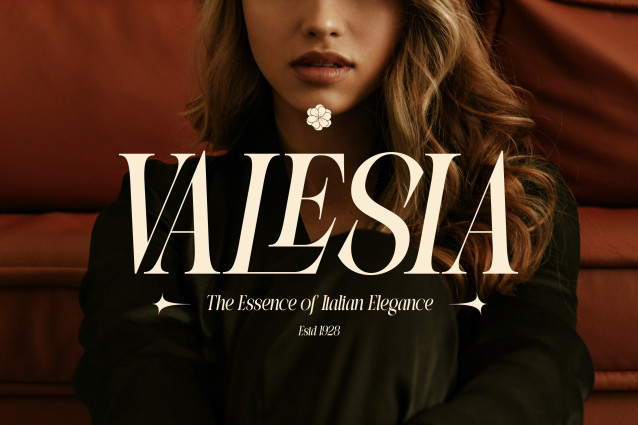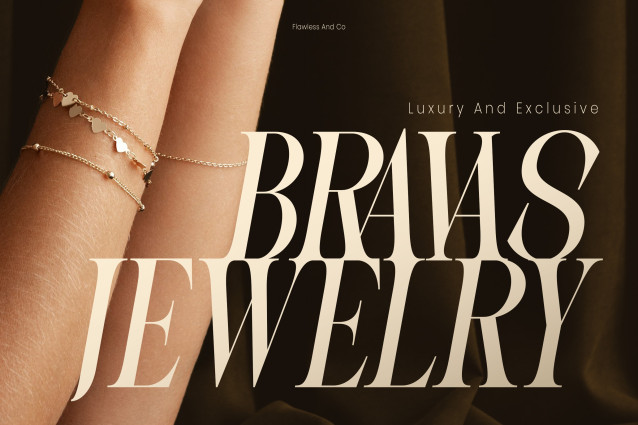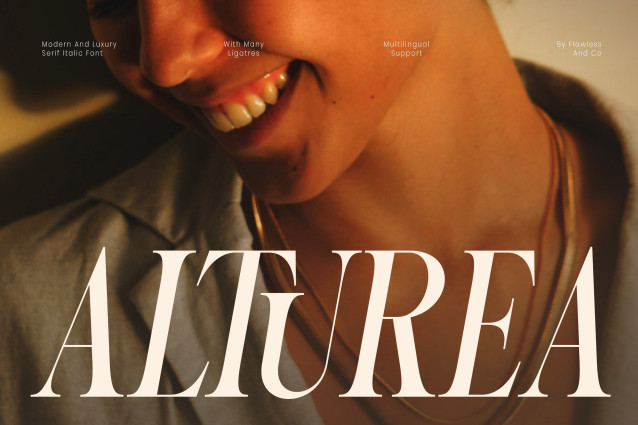
Alturea – Modern Luxury Italic Serif Font
Alturea – Modern and Luxury Italic Serif Font
Alturea is a modern and luxurious serif italic font that brings together graceful elegance, refined proportions, and timeless sophistication. Featuring slender strokes, dramatic contrasts, elegant curves, and beautifully extended letterforms, Alturea creates a sophisticated visual presence that feels both fashionable and effortlessly classy.
Designed with a distinctive italic character, Alturea adds a sense of movement and refinement to every word. Its delicate yet expressive forms make it especially striking in large-scale typography, allowing headlines, brand names, and short phrases to become the focal point of any composition.